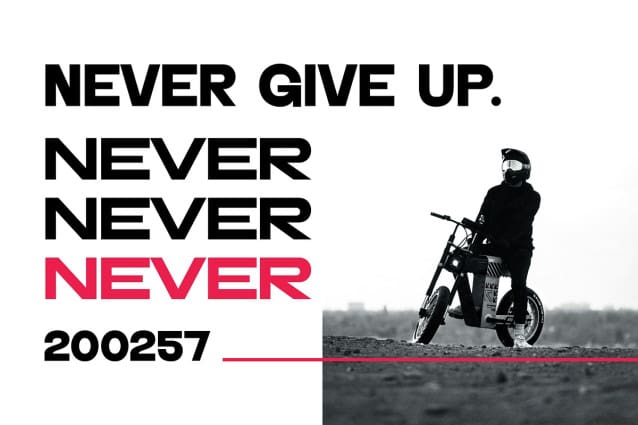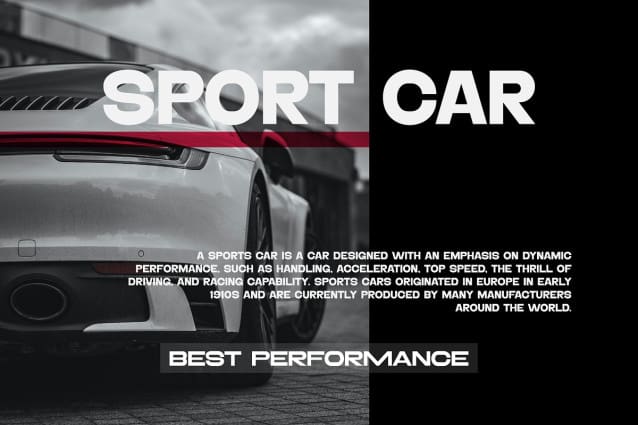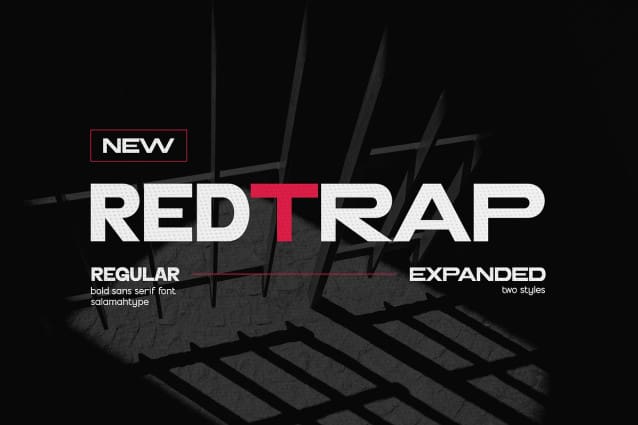
Redtrap Font
Redtrap Font, our bold, extended sans serif font, is designed to make your logo stand out with confidence and style. Its clean lines and expansive character exude strength and modernity, making it the perfect choice for impactful branding. With its bold presence and versatile appeal, this font ensures your logo leaves a lasting impression on any platform.